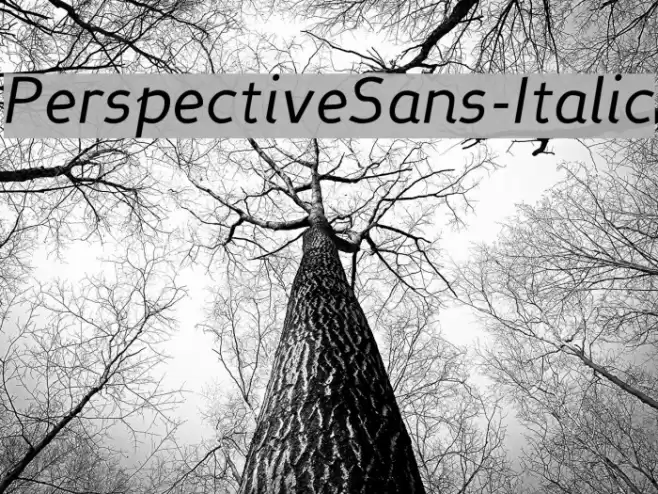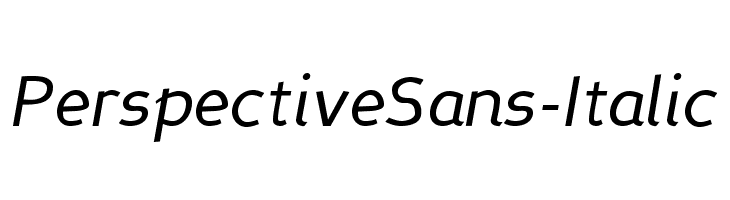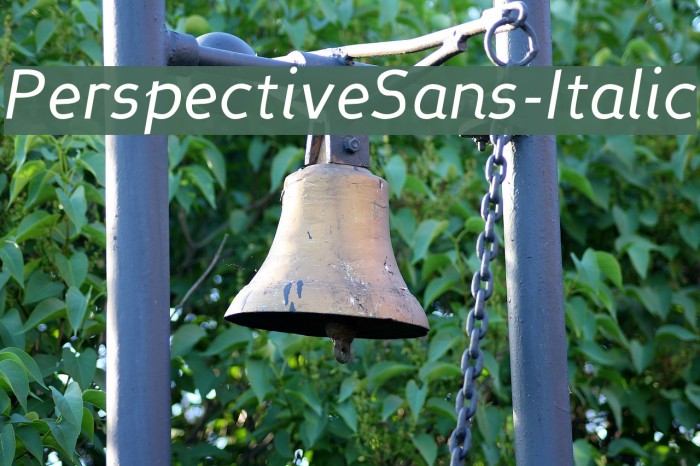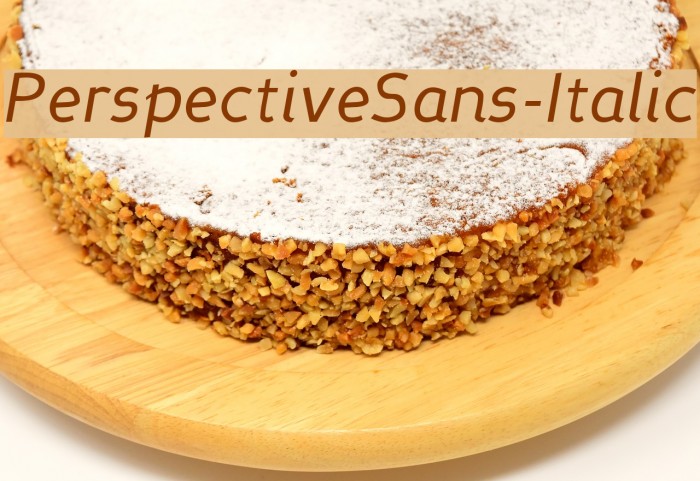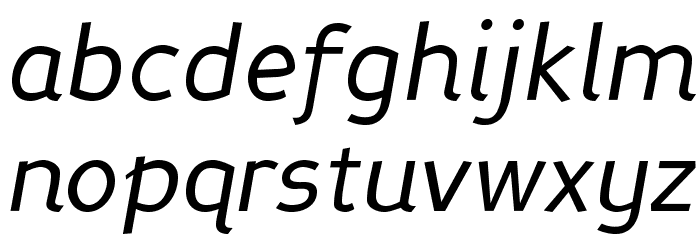
PerspectiveSans-Italic Font
PerspectiveSans-Italic Description
This font features a sleek and modern design with a slight italic slant, giving it a dynamic and forward-moving appearance. The characters are clean and well-defined, with a consistent stroke width that maintains readability across various sizes. The uppercase letters are bold and commanding, while the lowercase letters offer a softer, more approachable feel. The numerals are clear and distinct, making them suitable for both display and text purposes. Special characters are well-integrated, ensuring versatility in different contexts.
A modern, italic sans-serif font with clean lines and a dynamic slant from Uncategorized fonts.
- Proposed Projects: Ideal for branding, advertising, and digital media projects where a modern and professional look is desired.